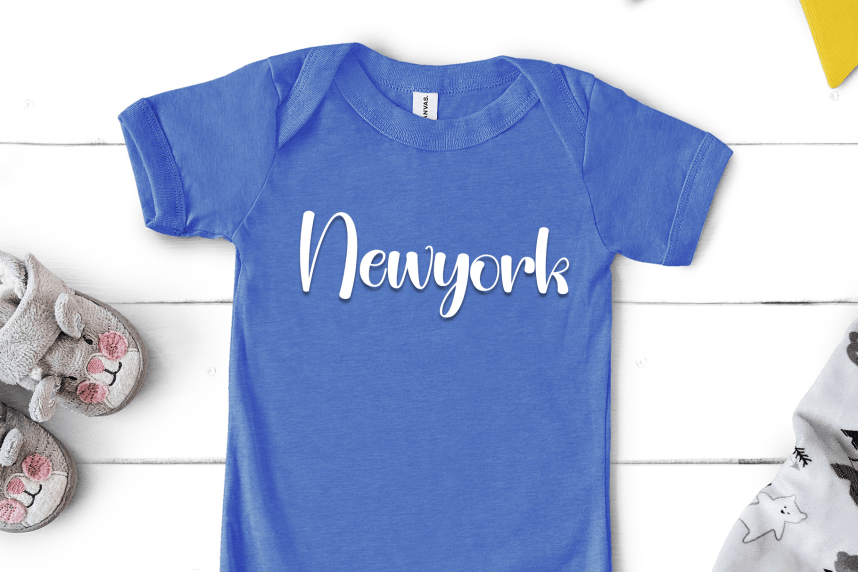
Perfect Girlfriend – Creative Style Font
Perfect Girlfriend – Creative Style Font is a sweet and friendly handwritten display font. Cute and fun, this font is ideal for writing wedding invitations, cards, or any other design that might need a playful touch!